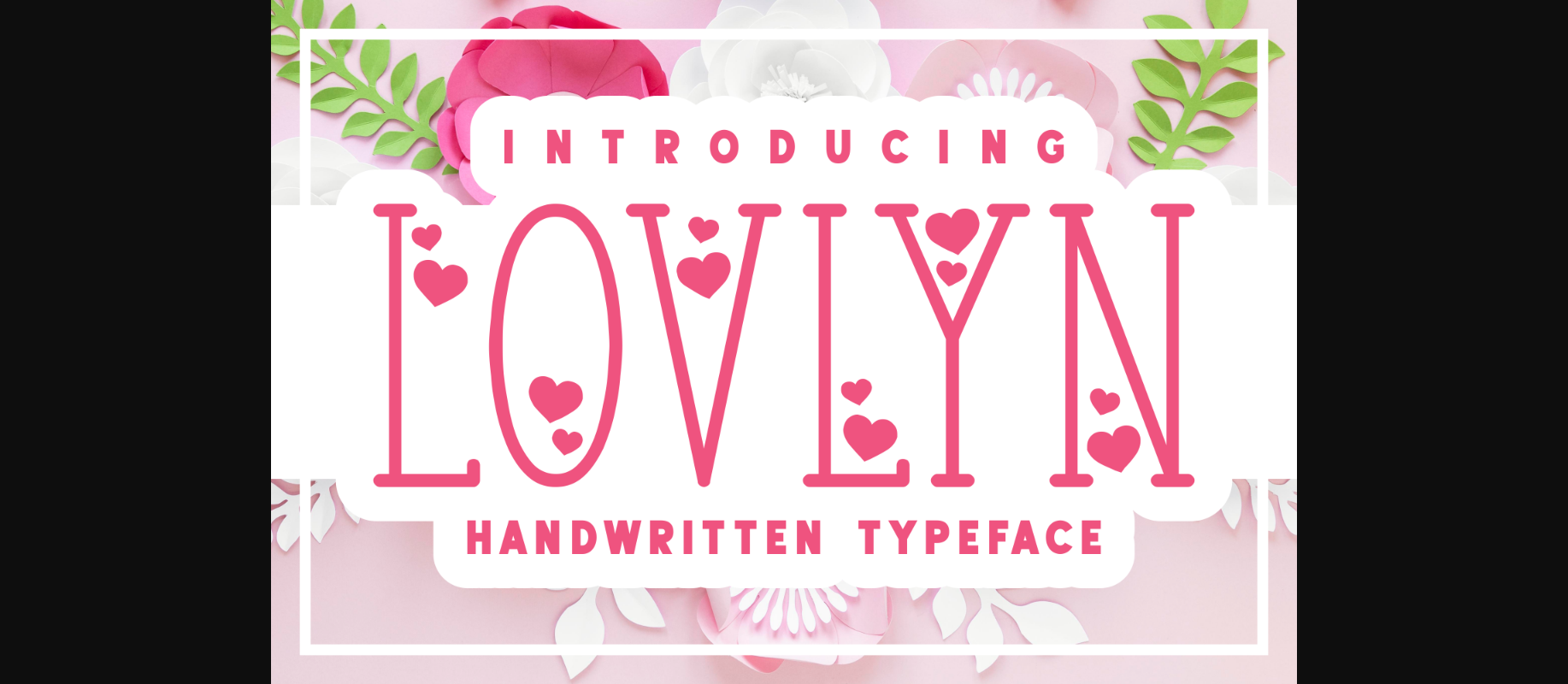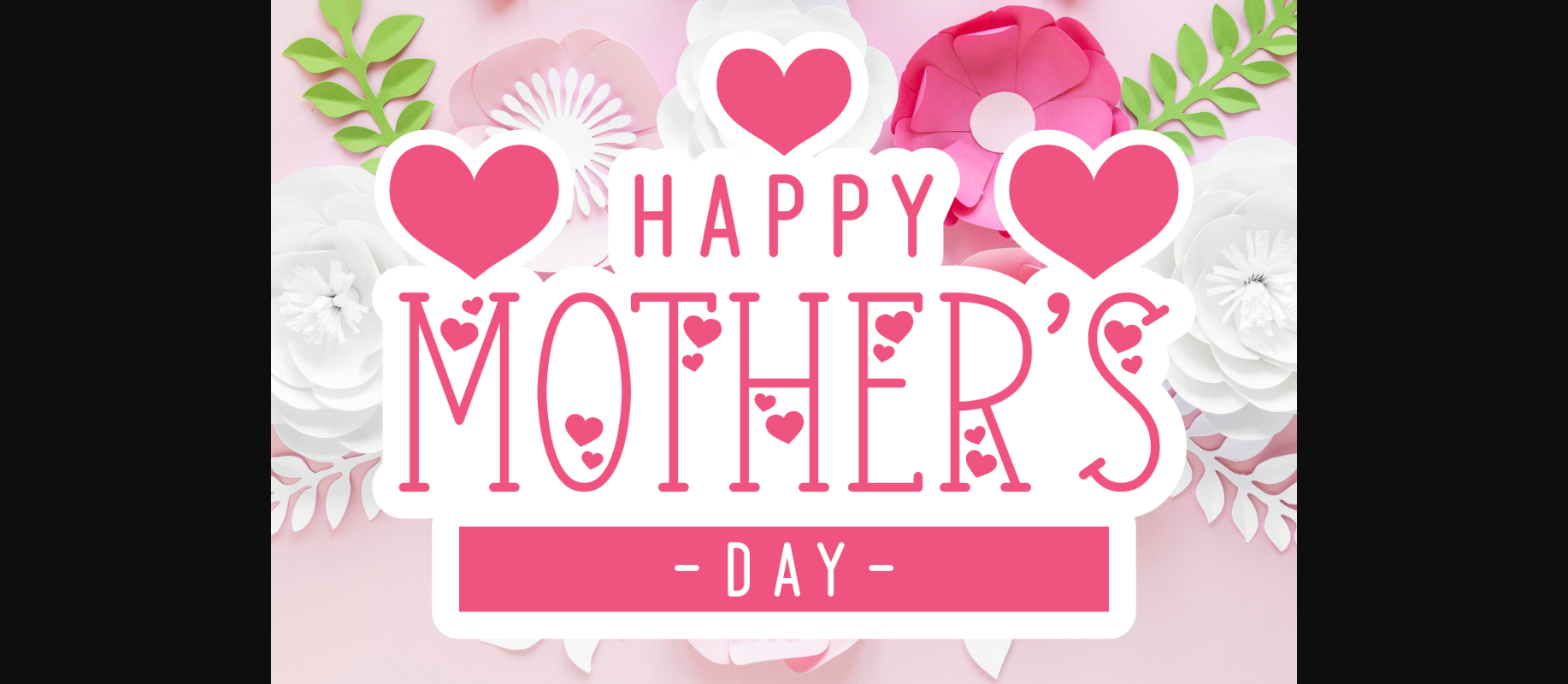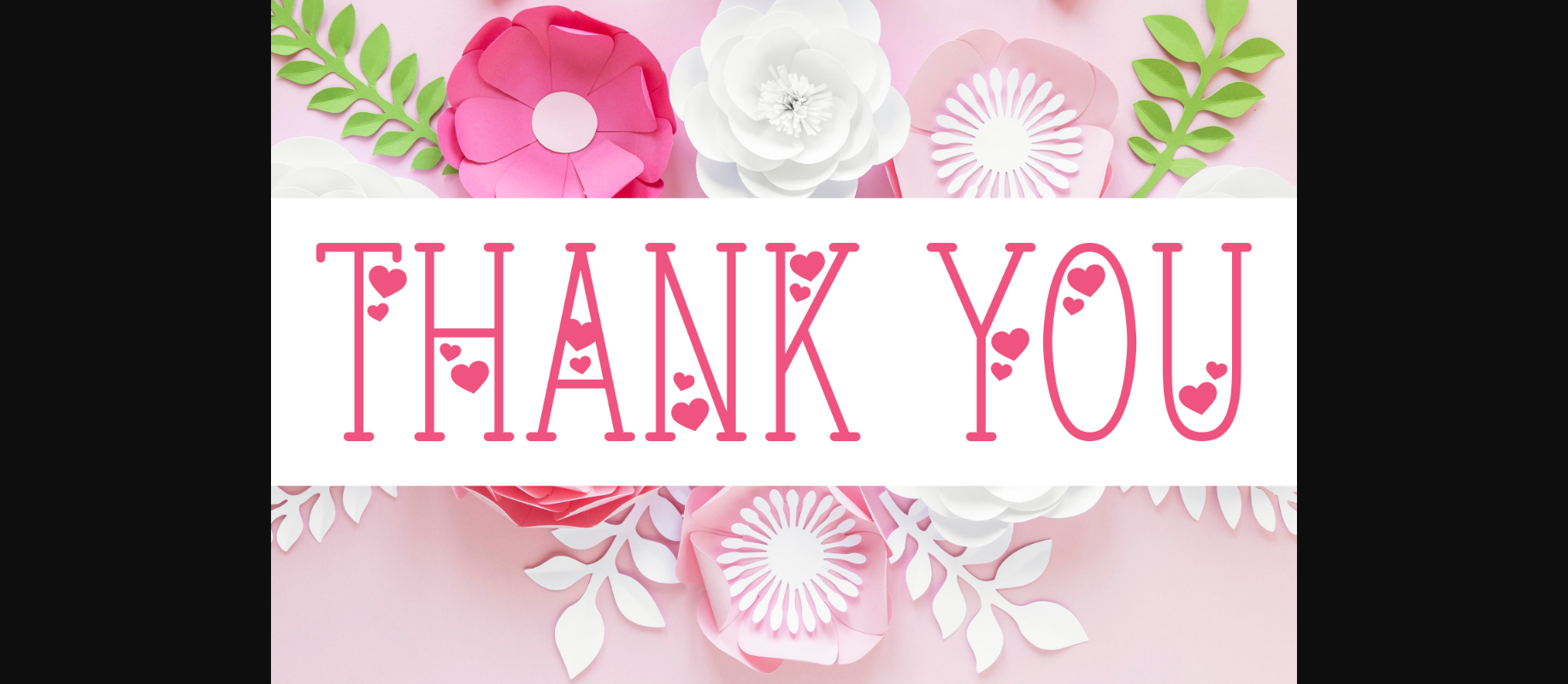
Lovlyn Font
About Lovlyn Font
Lovlyn is a gorgeous decorative font, masterfully designed to impress! With incredibly playful and lovable characters that are surprisingly easy to read, this font can easily elevate the look of any creation and design!